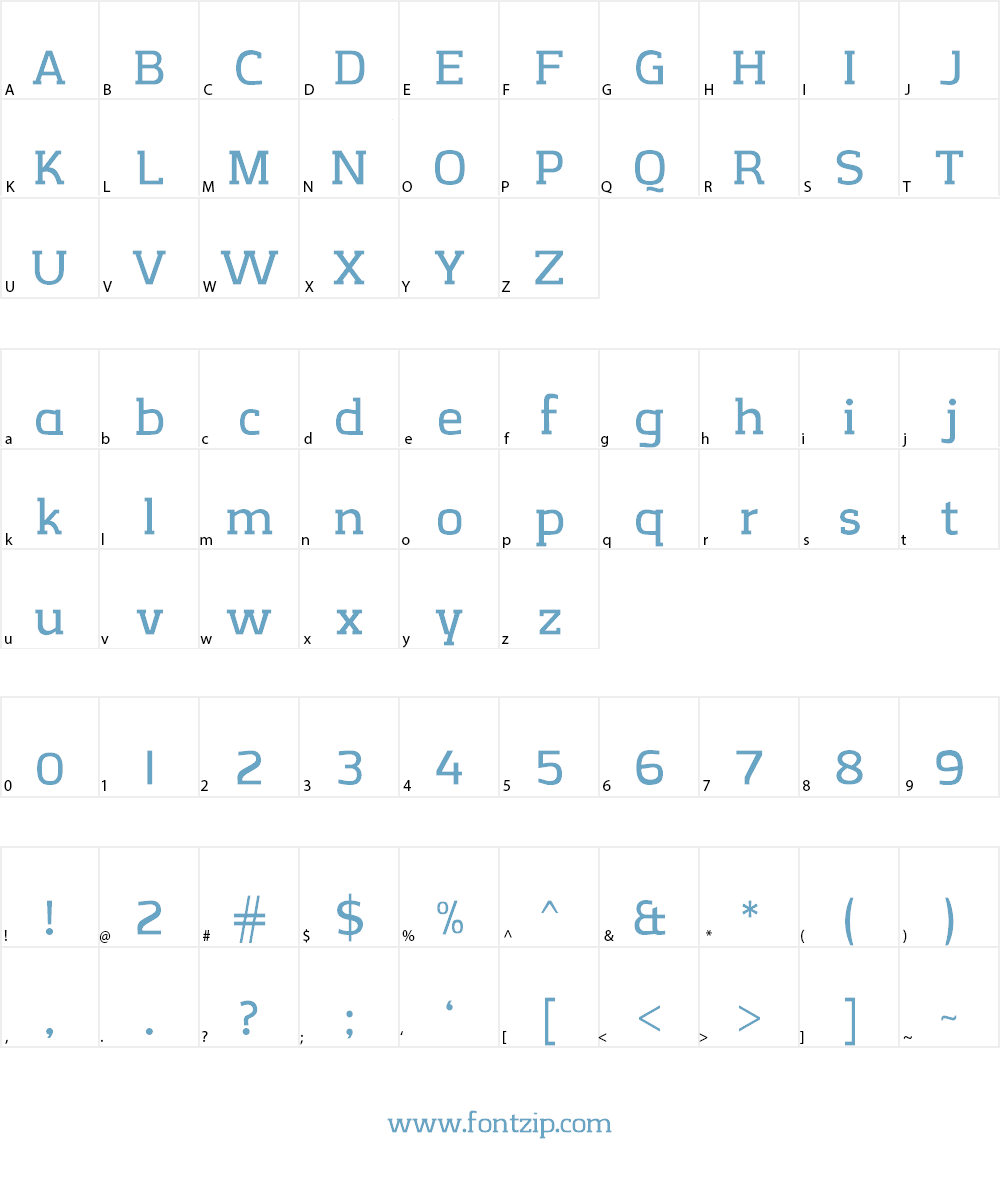
This is the serif companion to CreativZoo Regular (http://www.fontspace.com/explogos/creativzoo-regular). There are over 250 characters, including the complete Basic Latin Unicode block, as well as a significant proportion of the Latin Supplement and Latin Extended-A Unicode blocks.